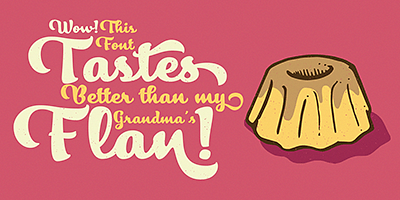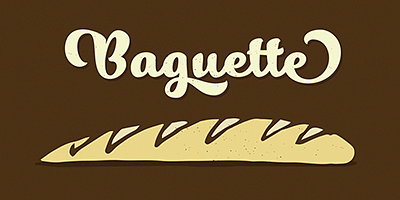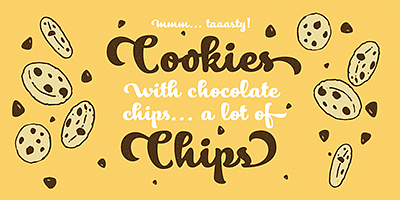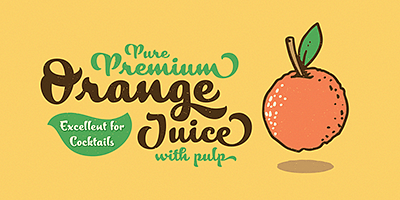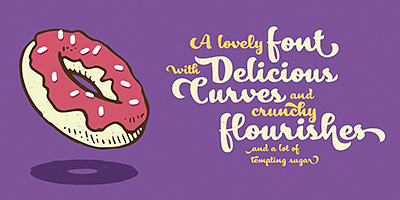
From the very beginning, the search was based on creating a font with weight and good presence in big formats, but, at the same time, efficient for brief texts of small formats. The aim was to make it usable mainly in candy, sweets and chocolate packaging.